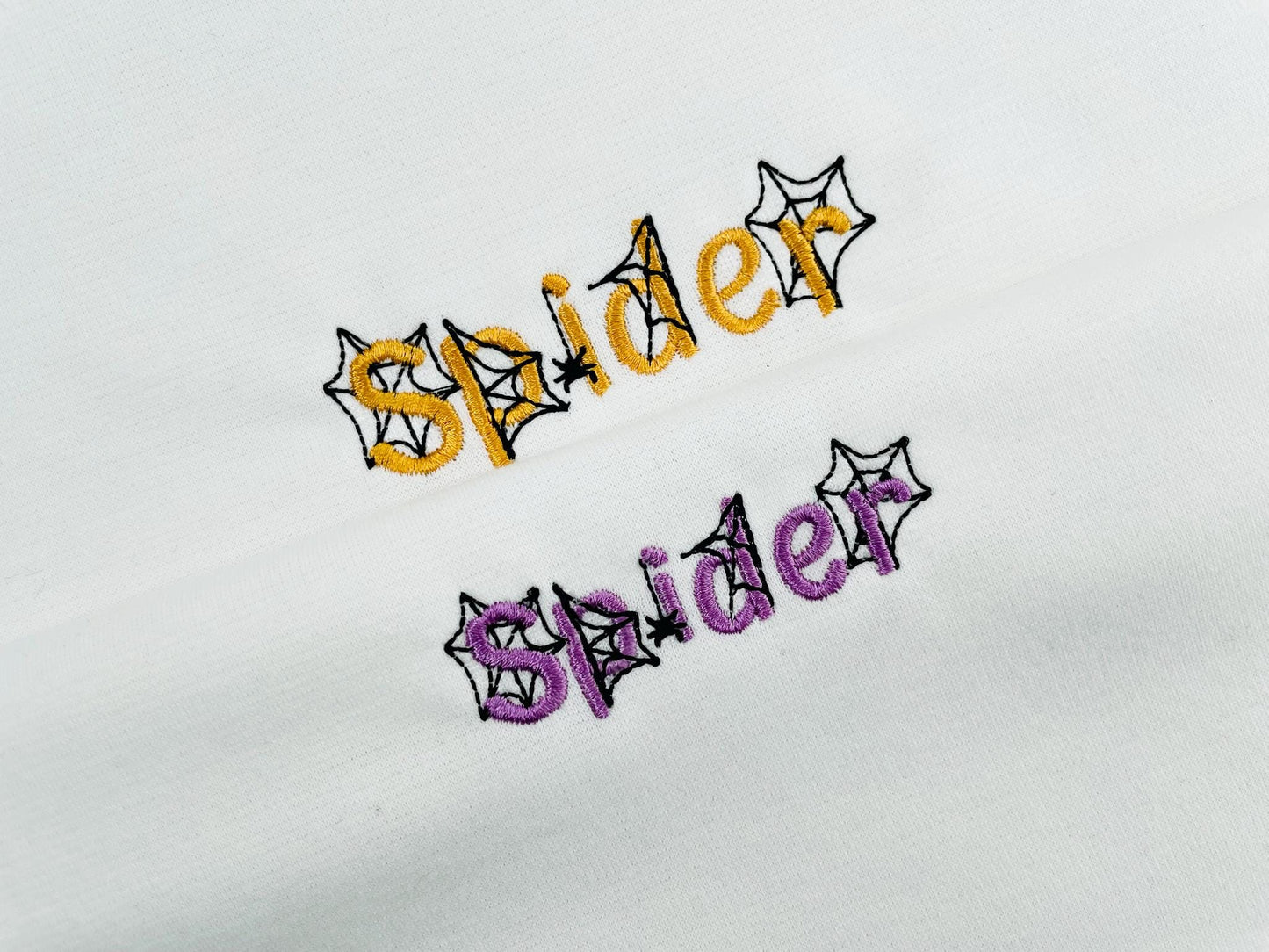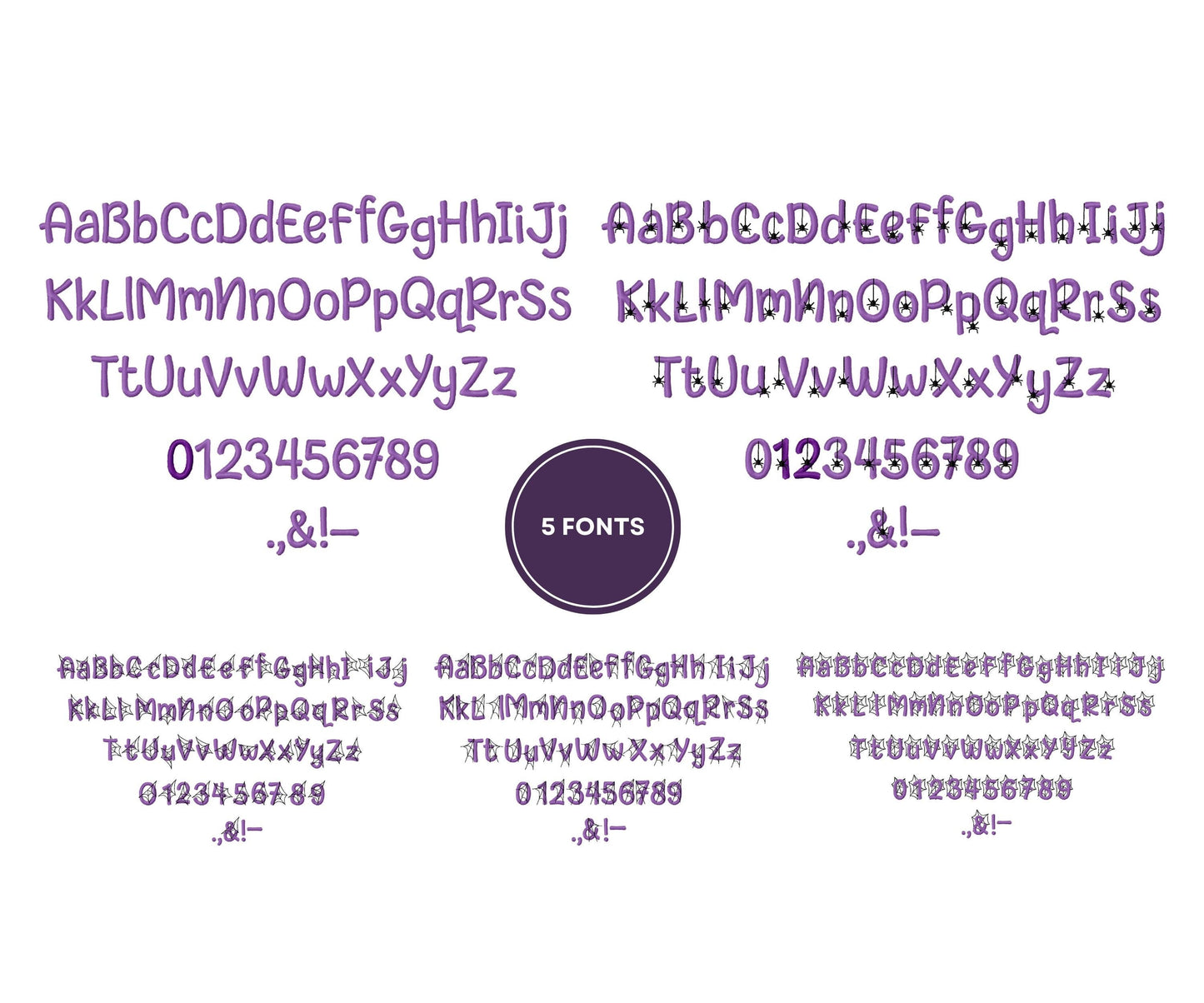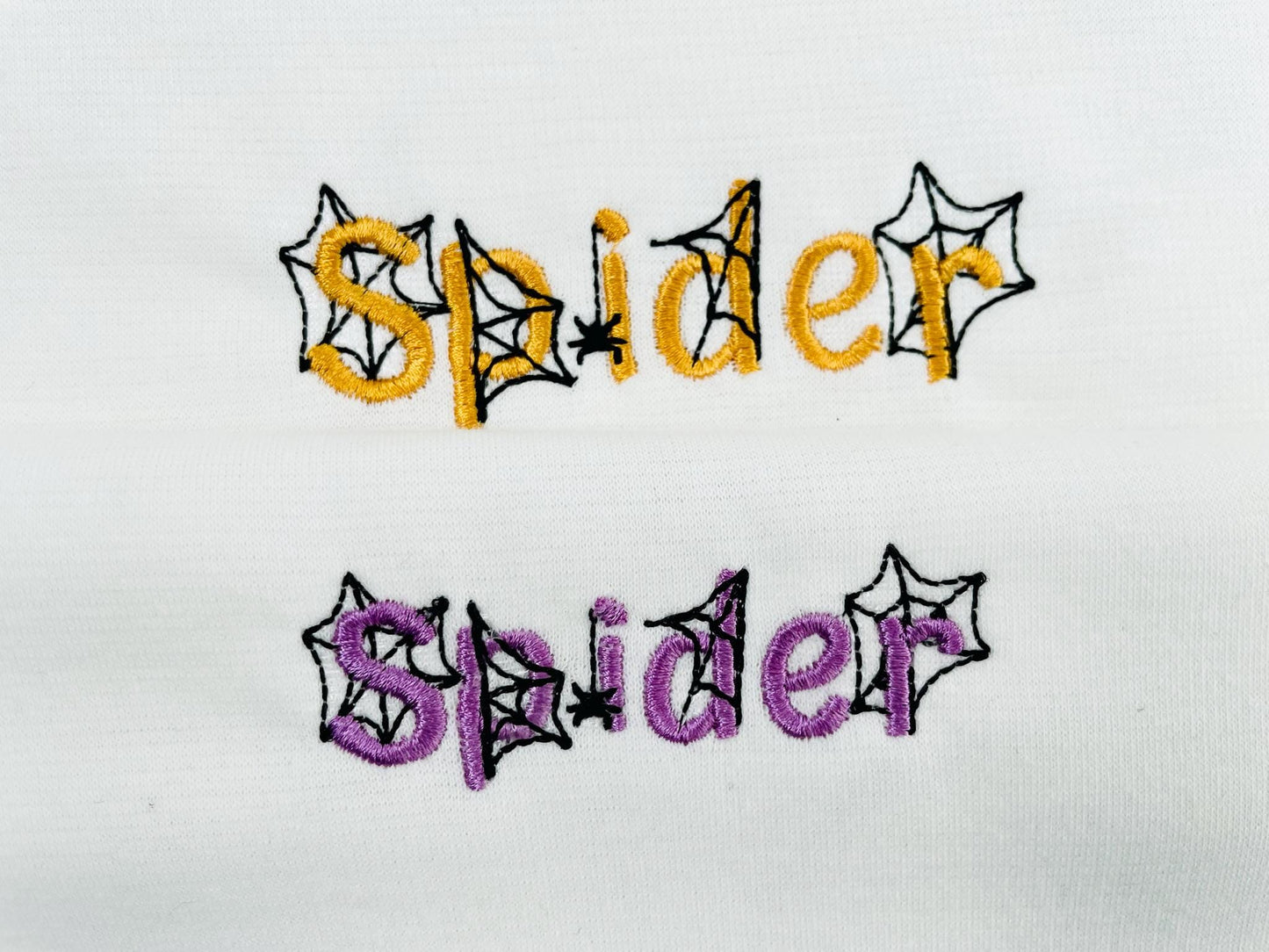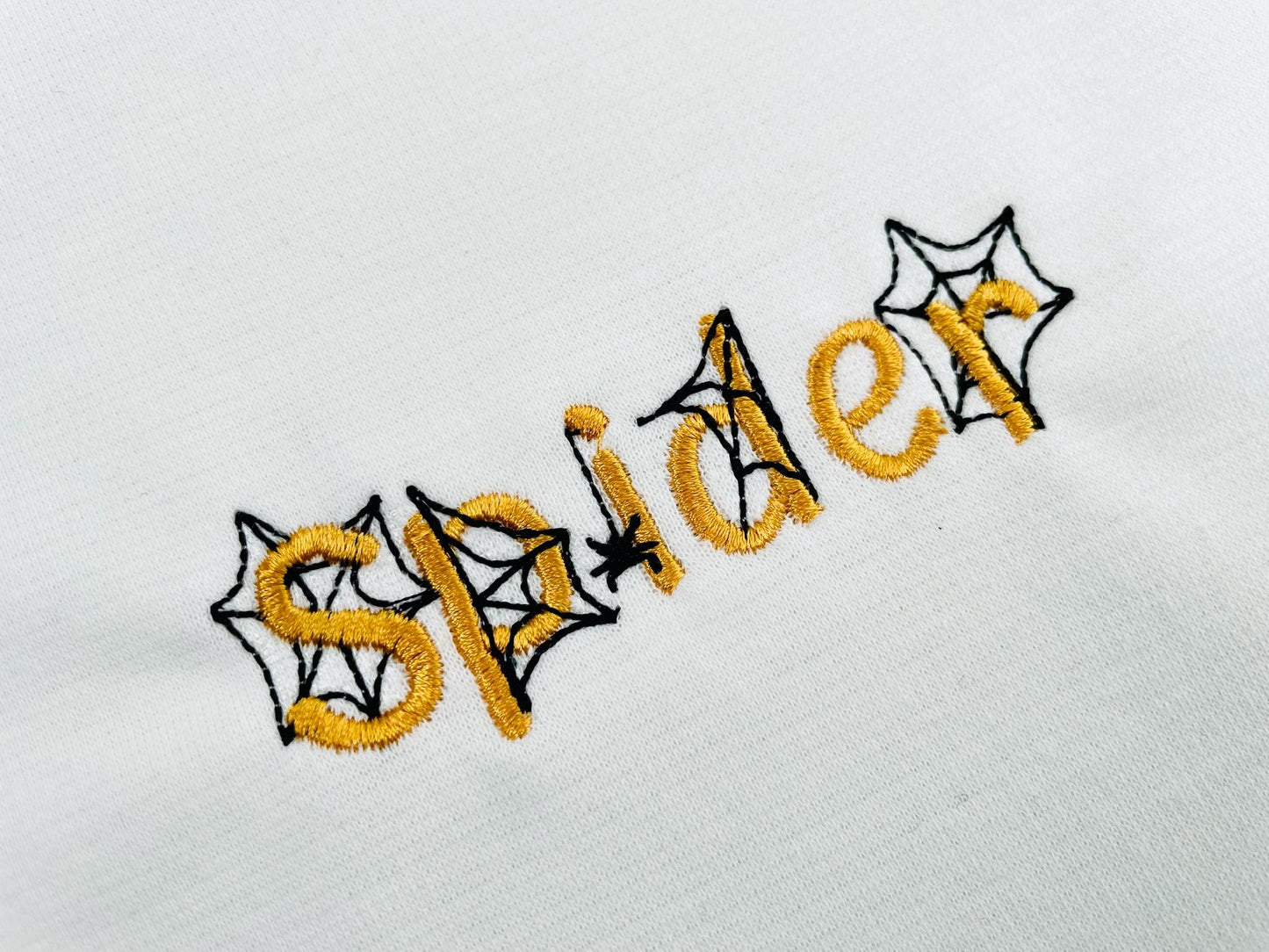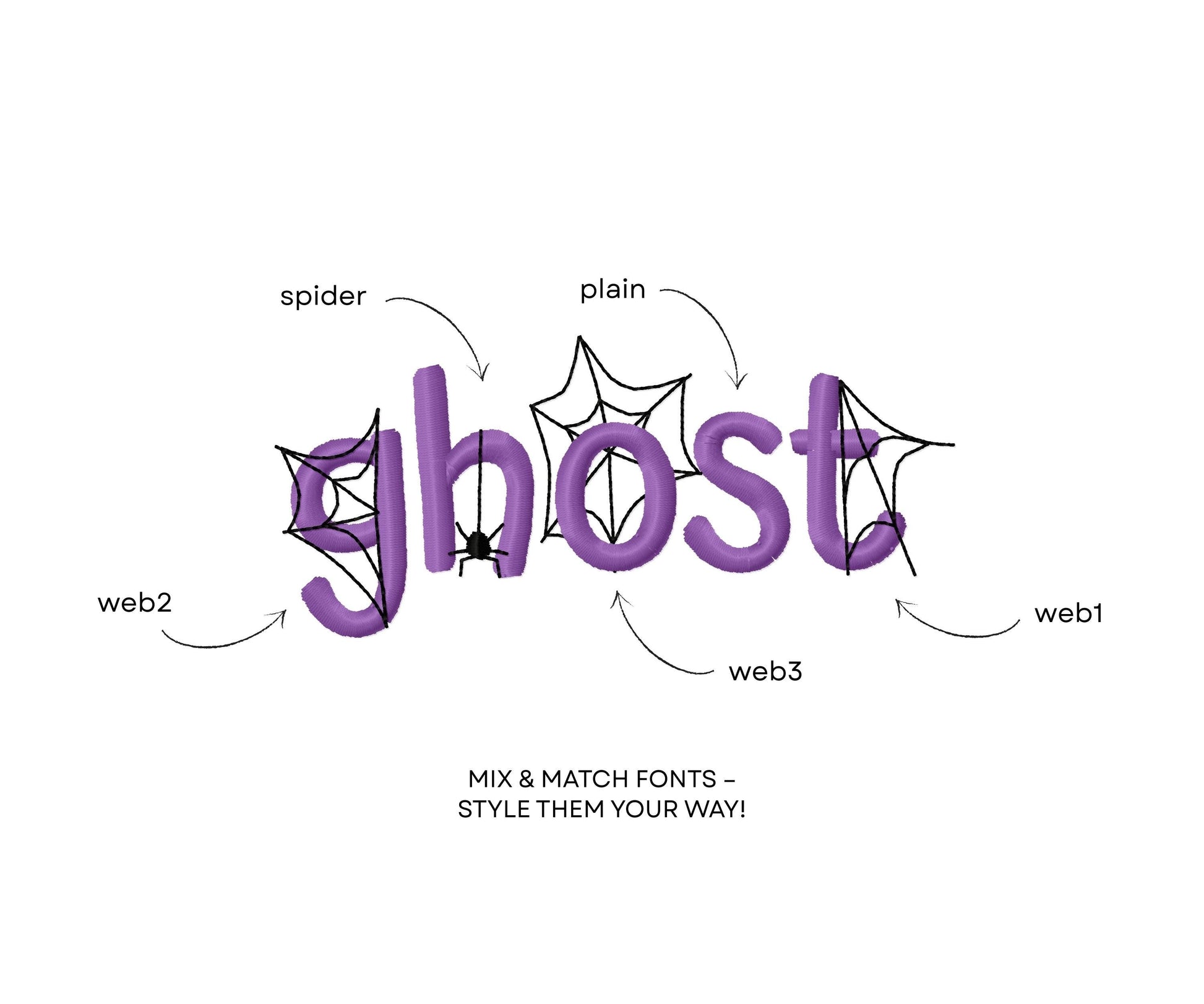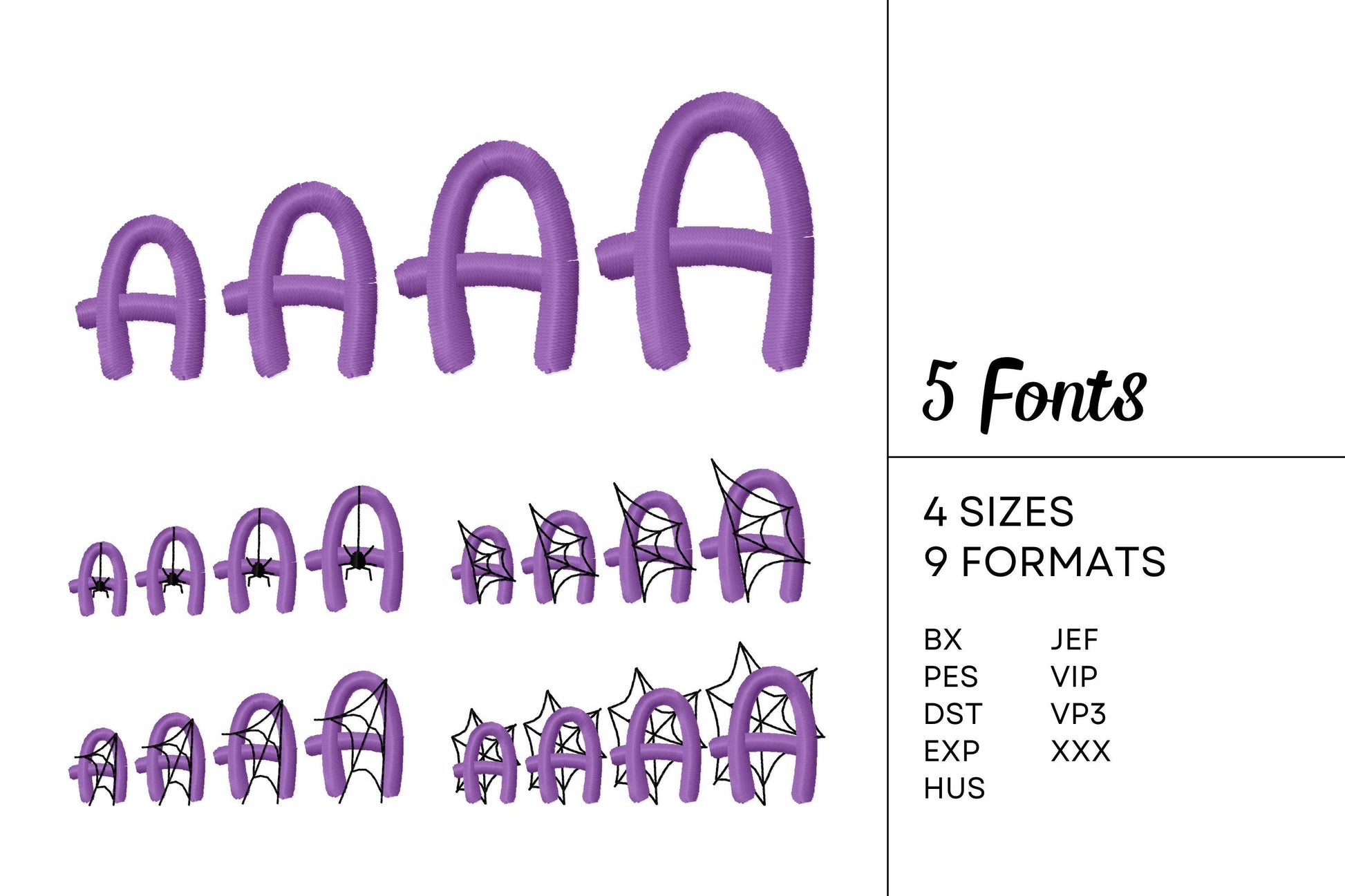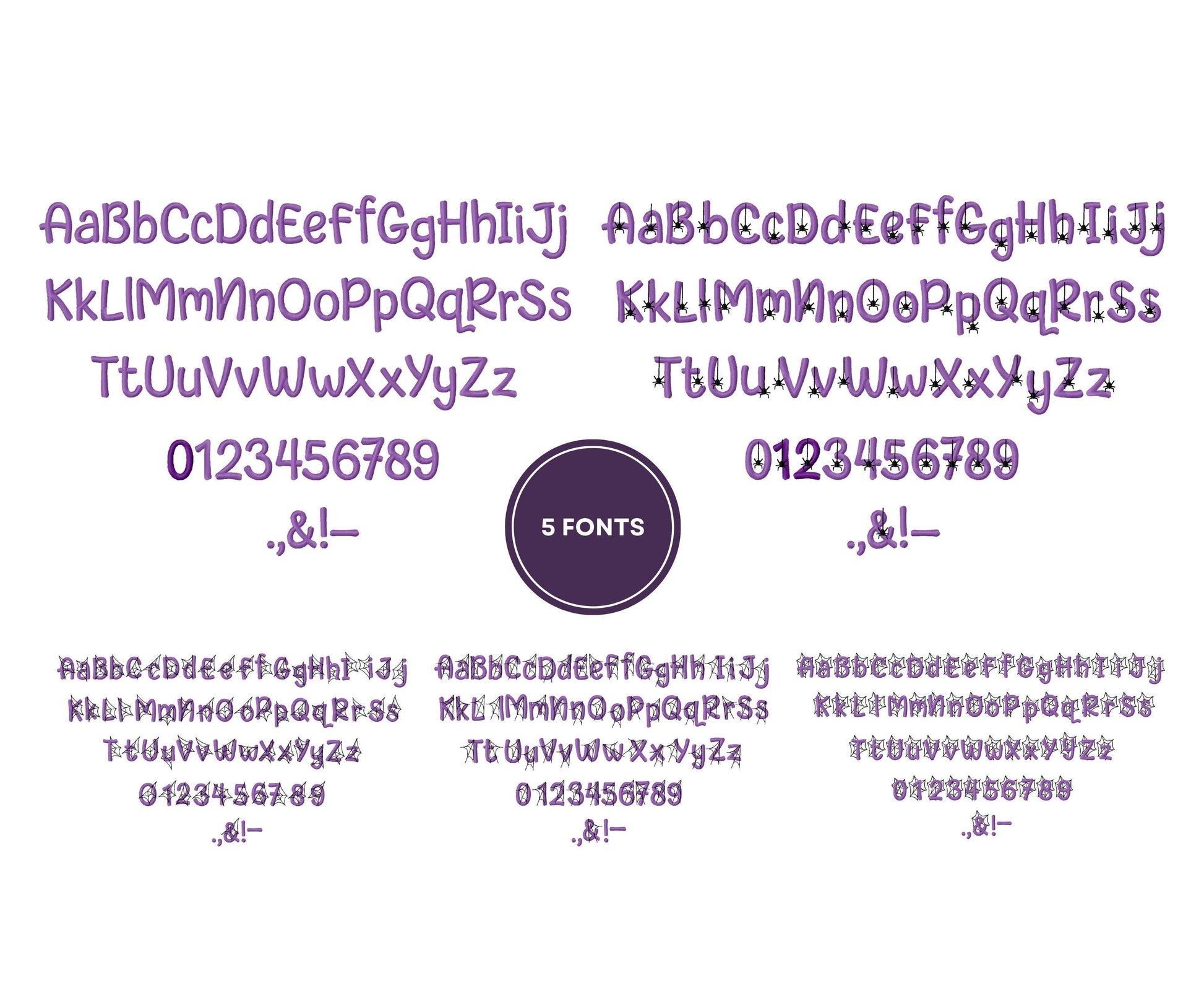
Halloween Spider Web Set of 5 Mini Fonts
Included 5 types
Mix and match however you like!
Each font comes in the matching sizes.
Whole alphabet Aa-Zz uppercase and lowercase letters, numbers 0-9, and punctuation.